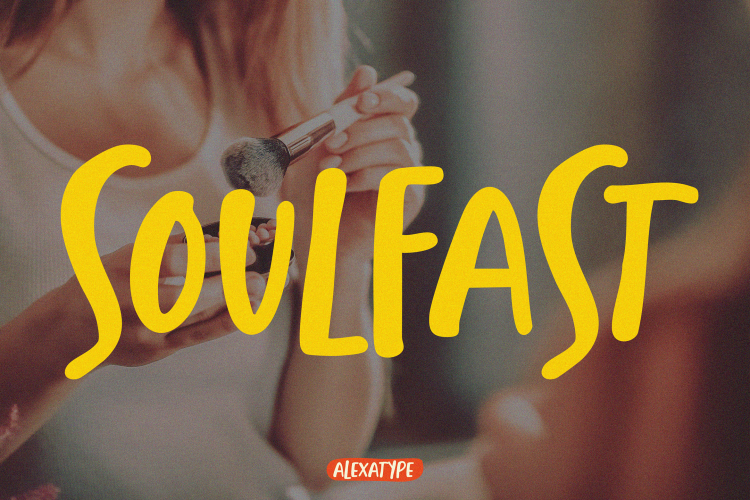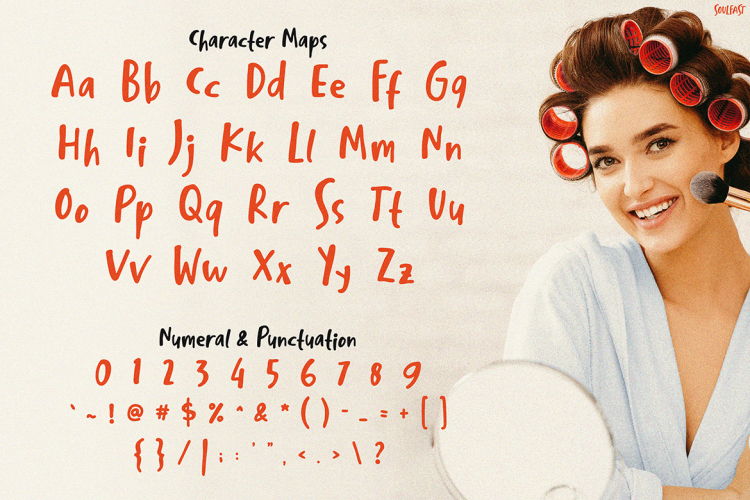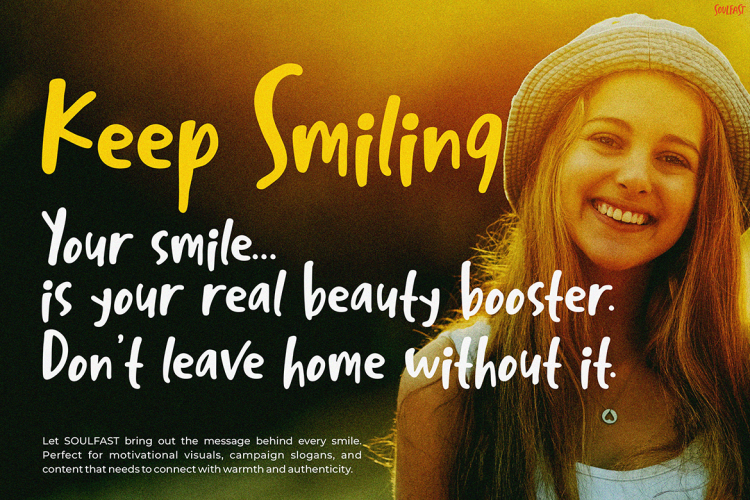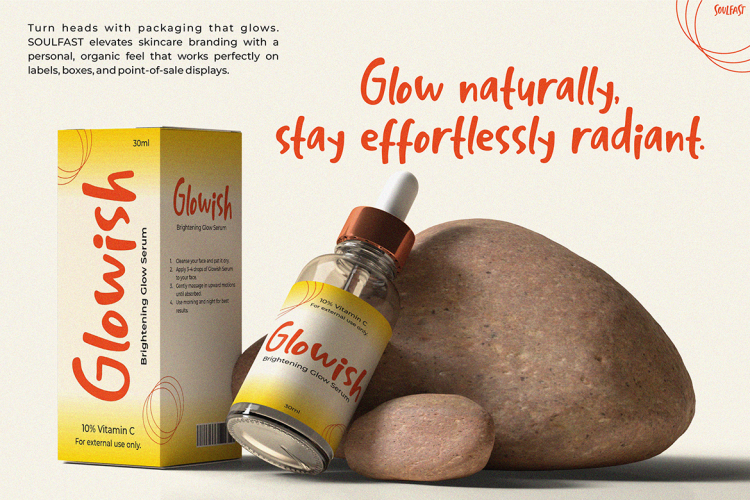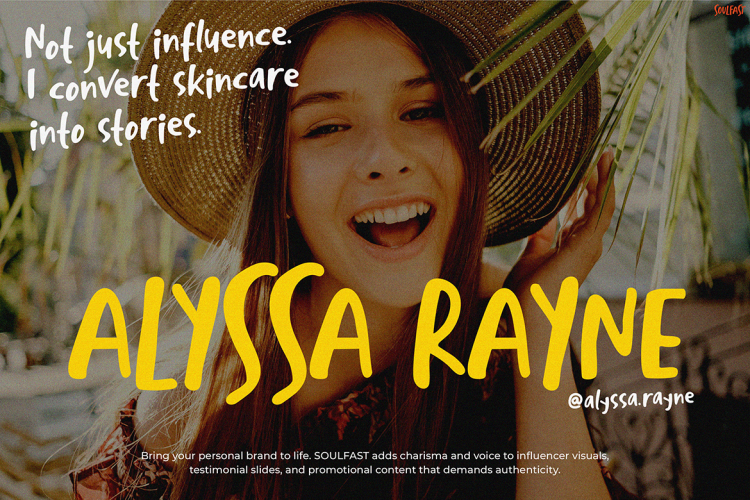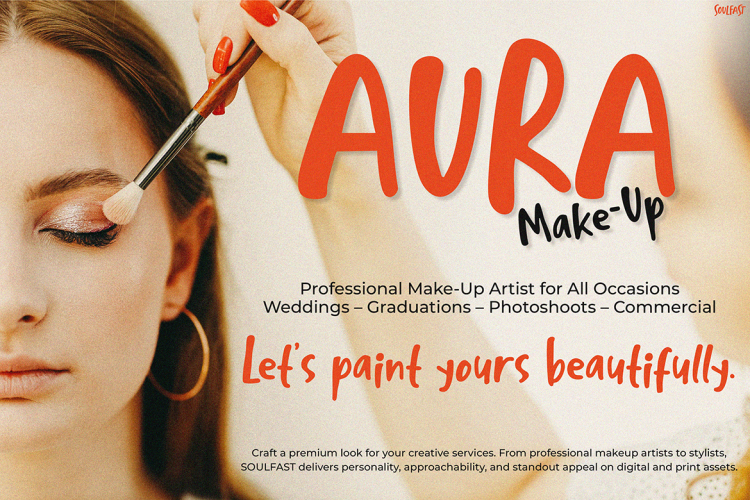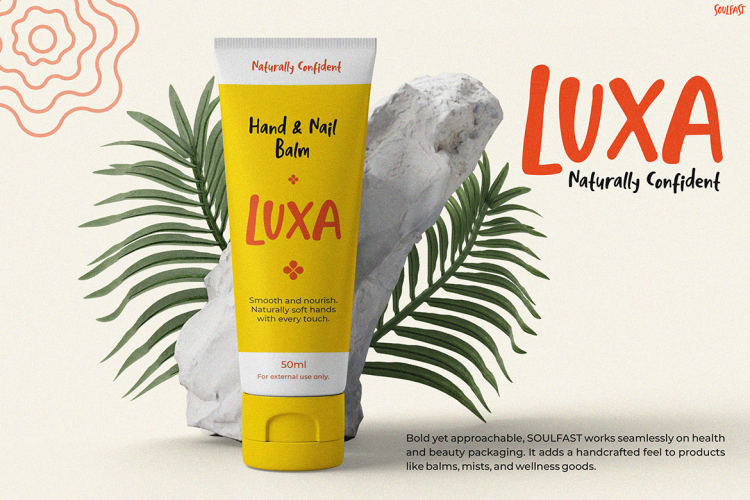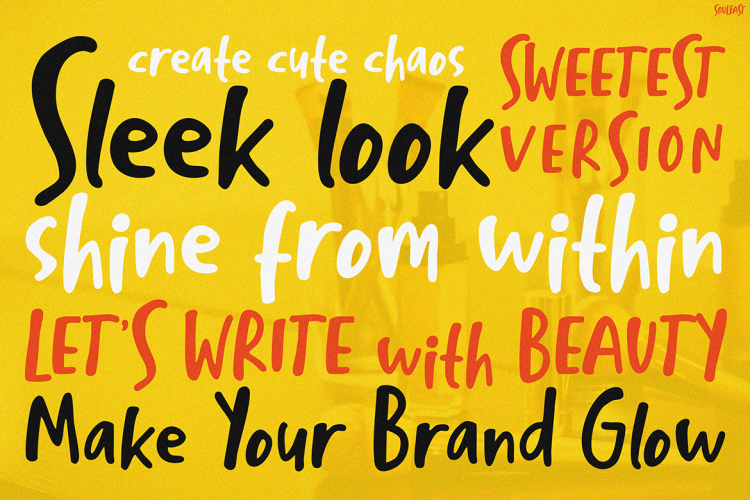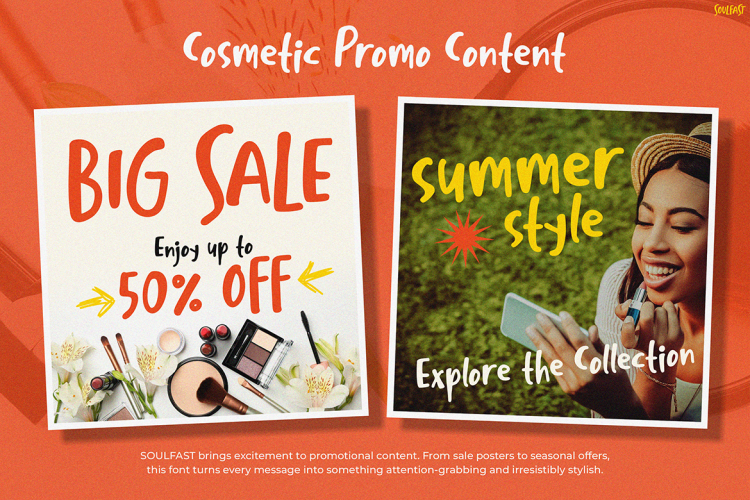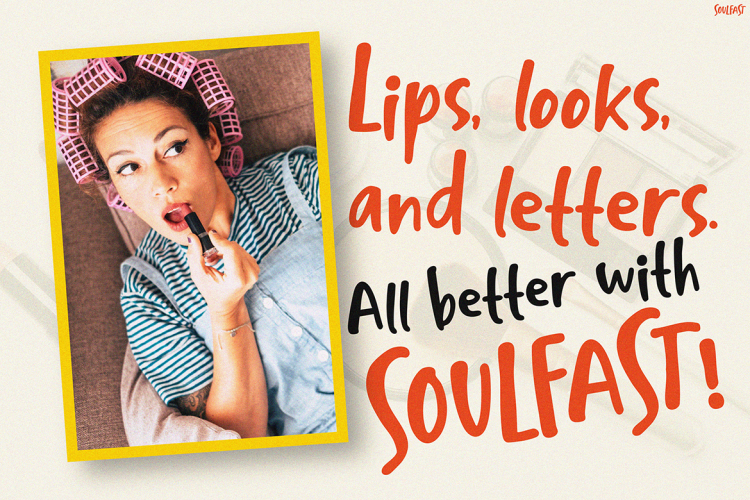
Instagram Font Soulfast: Add Personality and Warmth to Every Design
Instagram Font Soulfast is a brush-style typeface that brings charm, emotion, and individuality to your visual content. From the very first glance, it creates an instant connectionโthanks to its playful curves, bold strokes, and natural handwritten flow. Not only does it enhance visual appeal, but it also adds a touch of authenticity to any project.
What makes Soulfast truly special is its balance between fun and function. On one hand, it feels expressive and casual. On the other, it remains clean and readable across formats. Therefore, itโs perfect for eye-catching posts, product labels, or branding that aims to feel more human.
Moreover, this font helps creators communicate with genuine emotion. Whether you’re posting a motivational quote, crafting a heartfelt message, or building a campaign slogan, Soulfast delivers your message with personality. As a result, your designs will feel both striking and sincere.
Perfect For:
Content Creators & Influencers
If you want your content to feel personal yet professional, Soulfast is an ideal choice. It adds flair to Instagram stories, reels, carousels, and captions. Additionally, its style invites engagement and helps you stand out in a crowded feed.
Beauty & Lifestyle Brands
This font also works beautifully for businesses that rely on visual storytelling. From cosmetic packaging to spa menus, Soulfast elevates your brandโs tone. Consequently, your audience will feel more connected and engaged with your message.
Designers & Marketing Teams
For professionals seeking a font that blends charm with versatility, Soulfast is the answer. Whether youโre designing social ads, posters, or newsletters, this typeface keeps things light and approachableโwithout sacrificing clarity.
Event Planners & Creatives
Lastly, Soulfast adds an emotional spark to invitations, thank-you cards, and event signage. Because of its handmade look, each piece feels custom and heartfelt.
In conclusion, Instagram Font Soulfast is more than just a typefaceโitโs a storytelling tool that adds life to your design. Whether youโre a brand, creator, or designer, Soulfast helps your message shine with warmth and authenticity. So why wait? Make your visuals unforgettable with a font that truly connects.